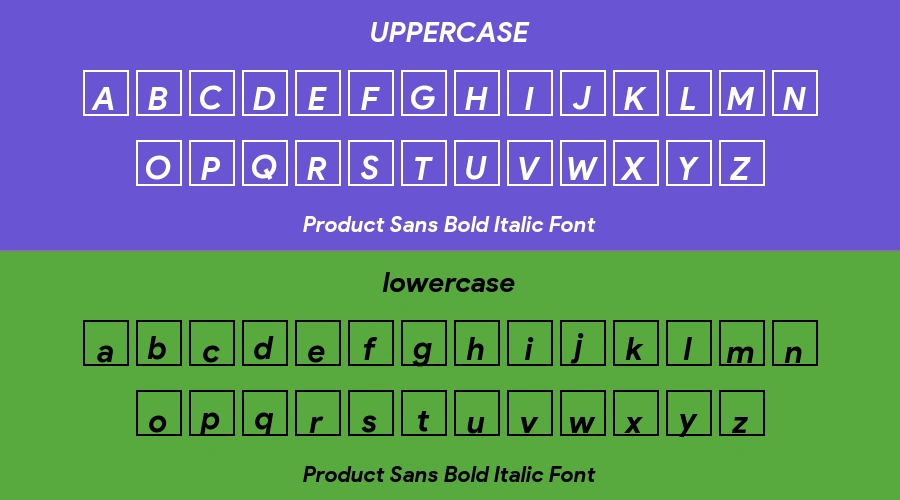
About Product Sans Bold Italic Font
Product Sans Bold Italic Font embodies typographic excellence through its masterful combination of natural flow and visual rhythm. Created for engineering drawings, this typeface delivers exceptional versatility and historical accuracy across all applications. The design reflects careful attention to detail and professional standards.
Advanced capabilities include distinctive clean lines and versatile text figures, giving designers creative control. When used in colophons, Product Sans Bold Italic Font exhibits remarkable multi-language support. The harmonious balance between proportion and artistic merit sets this typeface apart.